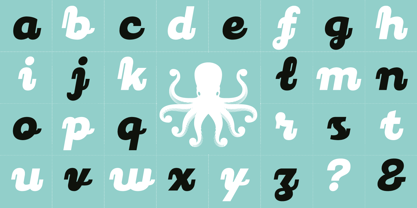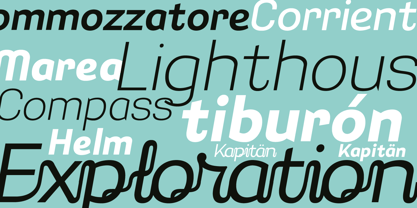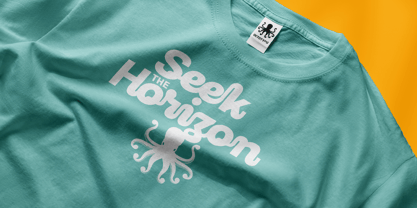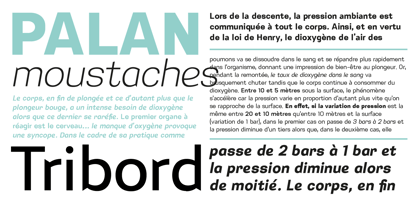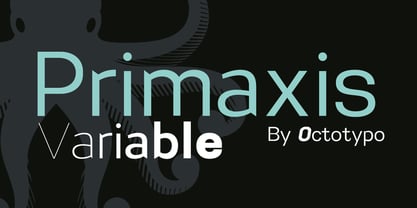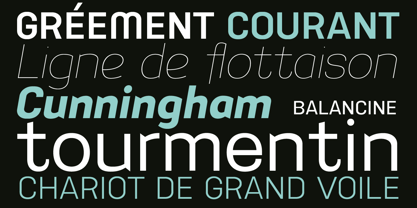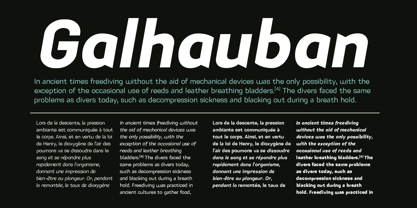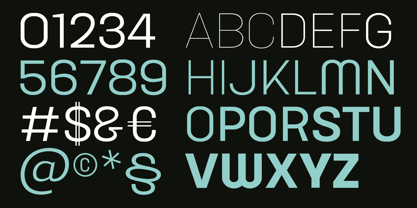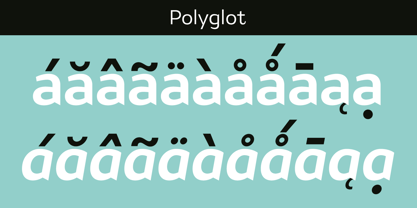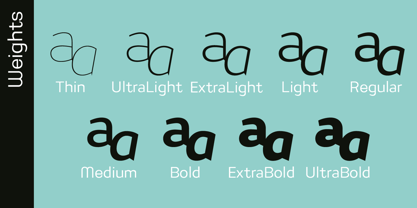
Primaxis Variable
von Octotypo
Die Schriftfamilie Primaxis Variable wurde von Julien Janiszewski entworfen und von Octotypo veröffentlicht. Primaxis Variable enthält 3 Stile und Familienpaketoptionen. Mehr über diese Familie
Meet Primaxis.
Born from a fascination with geometric balance and typographic rhythm, Primaxis explores how structure can become expression. Its precise skeleton anchors the eye, while its large counter forms create a quiet pulse. Alongside the italic, a script style joins the family — perfect for headlines and logo design.
Designed to perform across text and display, Primaxis brings a confident, contemporary voice to editorial design, identity systems, and digital interfaces.